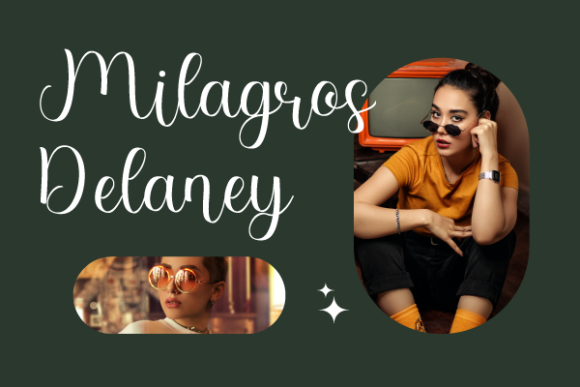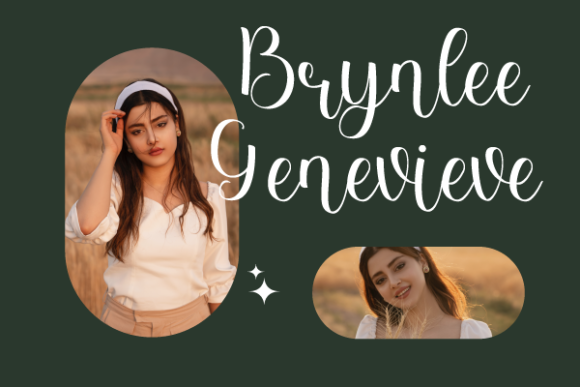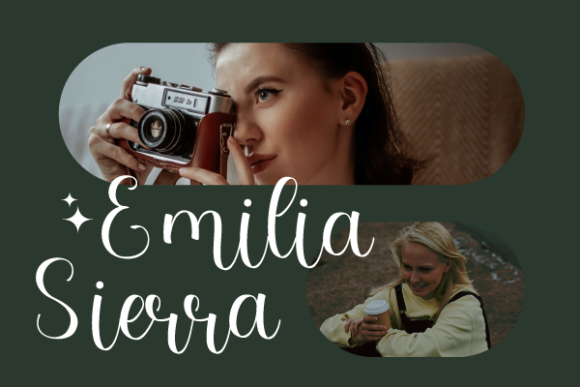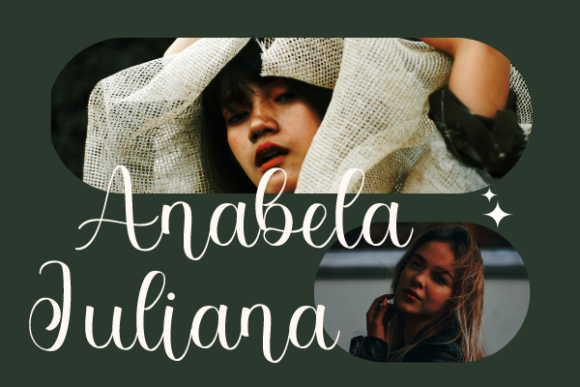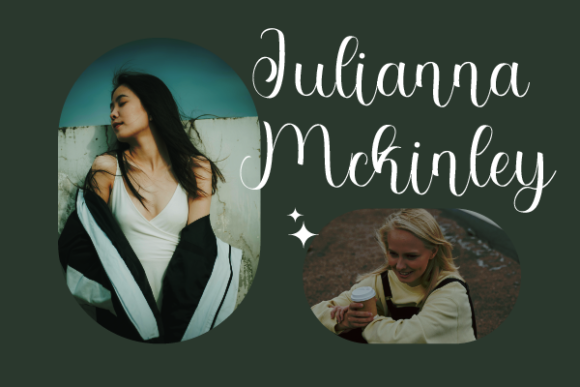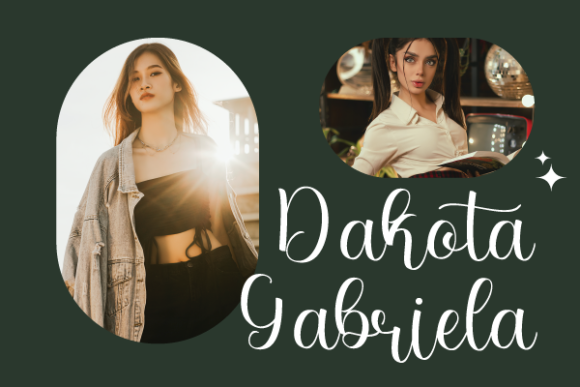
Introduction to Carmelo Reynaldo Font
Carmelo Reynaldo is a dazzling script font.
This font is neatly crafted and highly detailed Whatever the topic, Carmelo Reynaldo will be a wonderful asset to your font library, as it has the potential to enhance any creation.
Key Features of Carmelo Reynaldo Font